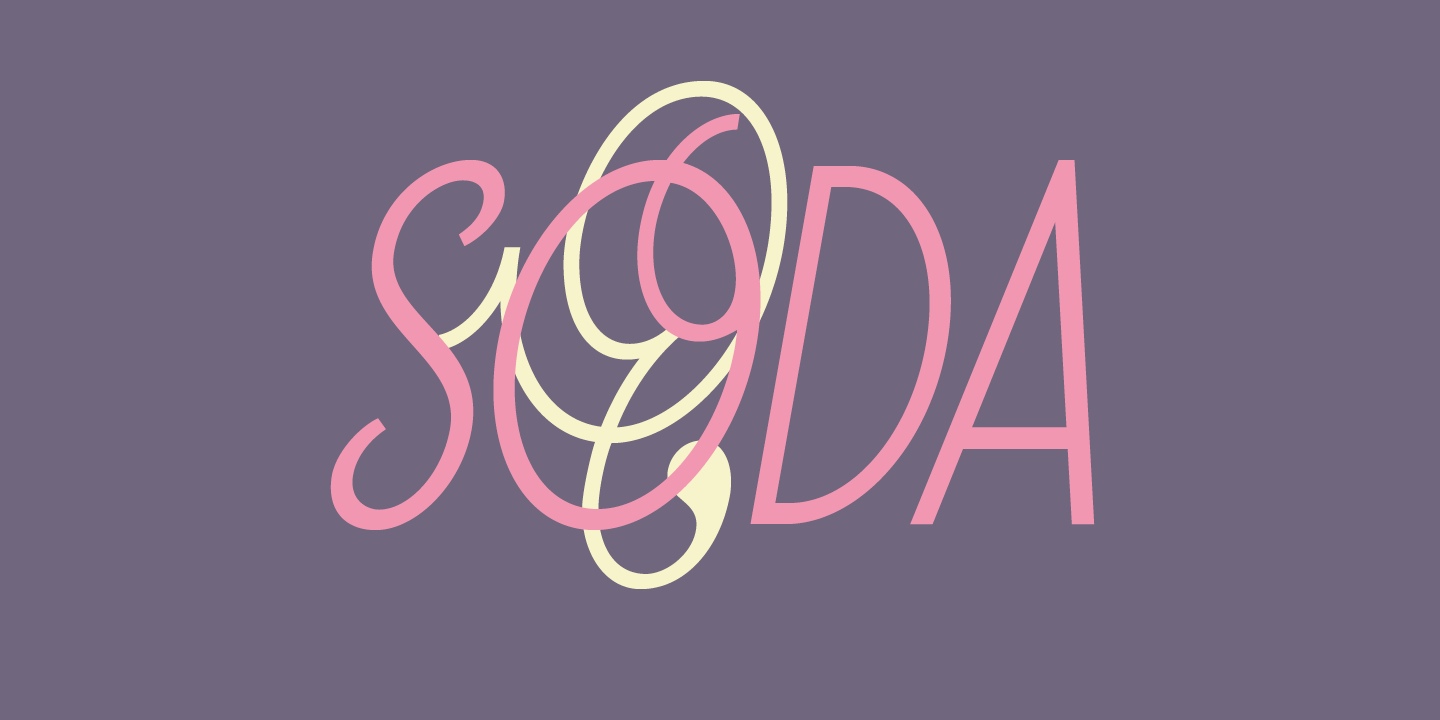
Soda Script Font
Soda Script Font is perfect for vintage soda shop branding, retro diner signage, classic ice cream parlor menus, nostalgic candy store displays, old-fashioned beverage packaging, 1950s-themed restaurant logos, americana carnival promotions, and throwback party invitations. This bubbly typeface excels in applications where retro charm and fizzy enthusiasm are essential for creating memorable and nostalgic brand experiences that celebrate classic American soda fountain culture.
What makes Soda Script Font truly exciting is its effervescent capture of mid-century soda fountain magic and the joyful spirit of classic American refreshment culture. The font features flowing script letterforms with dynamic curves and playful flourishes that mirror the bubbling excitement of carbonated beverages and the carefree atmosphere of vintage soda shops. Its cheerful personality and nostalgic charm create an immediate sense of fun and refreshment that resonates with audiences seeking authentic retro experiences. The typeface's fizzy character and vintage appeal make it perfect for brands wanting to convey refreshment, nostalgia, and connection to the golden age of American soda culture.
The Soda Script Font family includes regular and decorative versions, complemented by retro alternates and vintage-inspired ornamental elements. The font offers comprehensive character sets with classic ligatures and period-appropriate styling details that enhance its authentic 1950s aesthetic. Additional graphic elements including bubbles, stars, ribbons, and soda fountain motifs provide designers with complete branding tools rooted in American beverage culture and retro dining traditions.